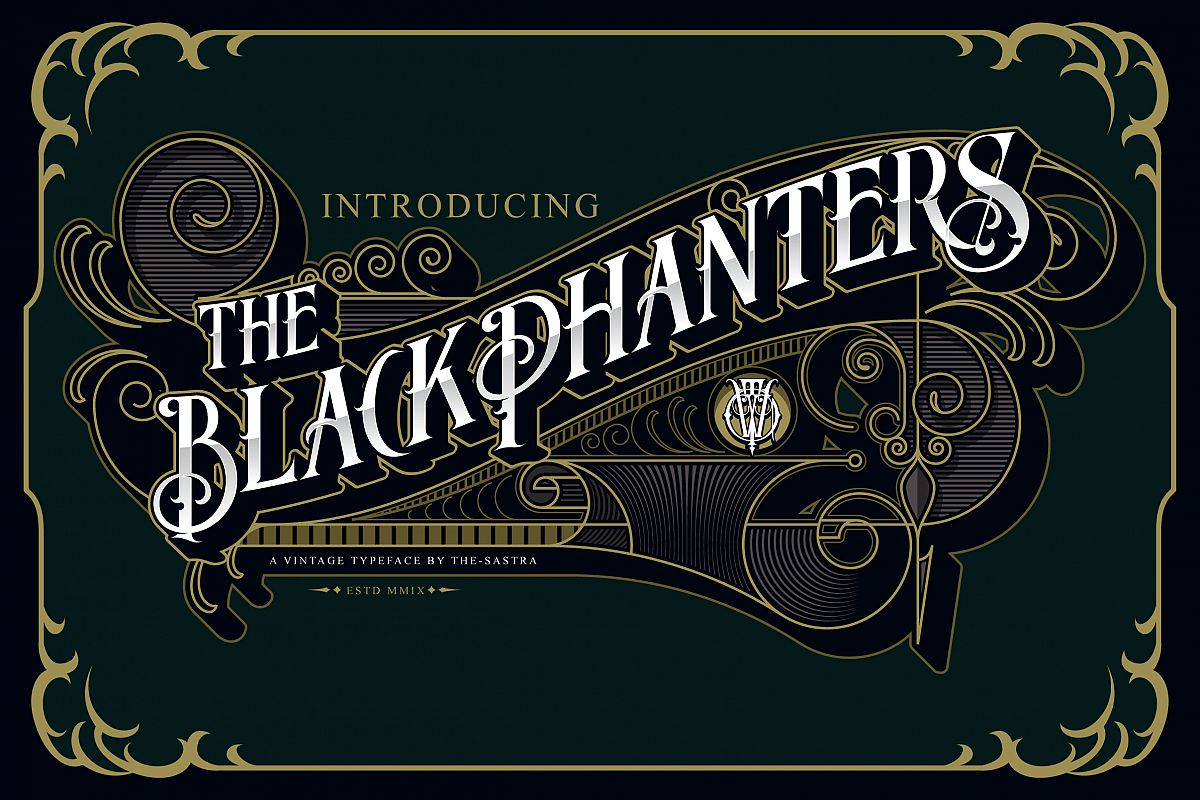
Blackphanter display font
Introducing a new Display font called Blackphanters. Blackphanters
typeface is perfect for badges, branding, labels, apparel, headlines,
signage, logo, quote, apparel and other creative applications.